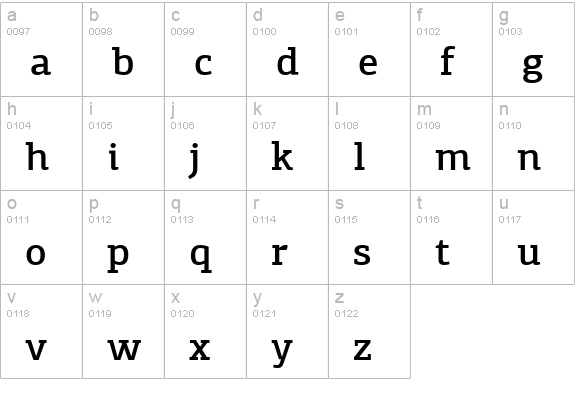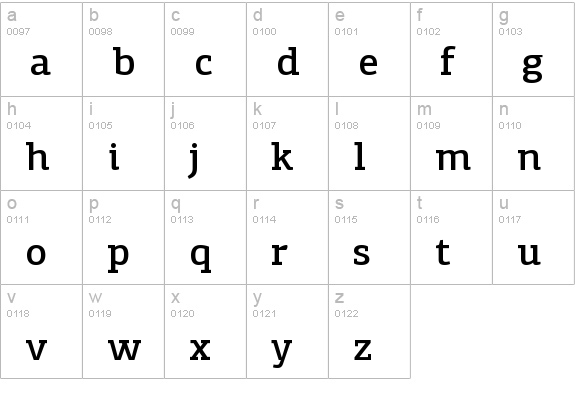
PFAgoraSlabPro-Medium is a balanced, medium-weight variant in the PFAgoraSlabPro typeface family \xE2\x80\x94 well suited to sub-headlines, navigation, and balanced editorial work.
PFAgoraSlabPro-Medium is a versatile and modern font that exudes elegance and sophistication. With its clean lines and balanced proportions, this font is perfect for a wide range of design projects, from branding to editorial design. The medium weight of this font strikes the perfect balance between readability and impact, making it ideal for both headlines and body text. What sets PFAgoraSlabPro-Medium apart is that it is available for free download at FontsMarket.com. This means that you can easily access this high-quality font without any cost, allowing you to elevate your designs without breaking the bank. Don't miss the opportunity to add PFAgoraSlabPro-Medium to your font collection and take your design projects to the next level.